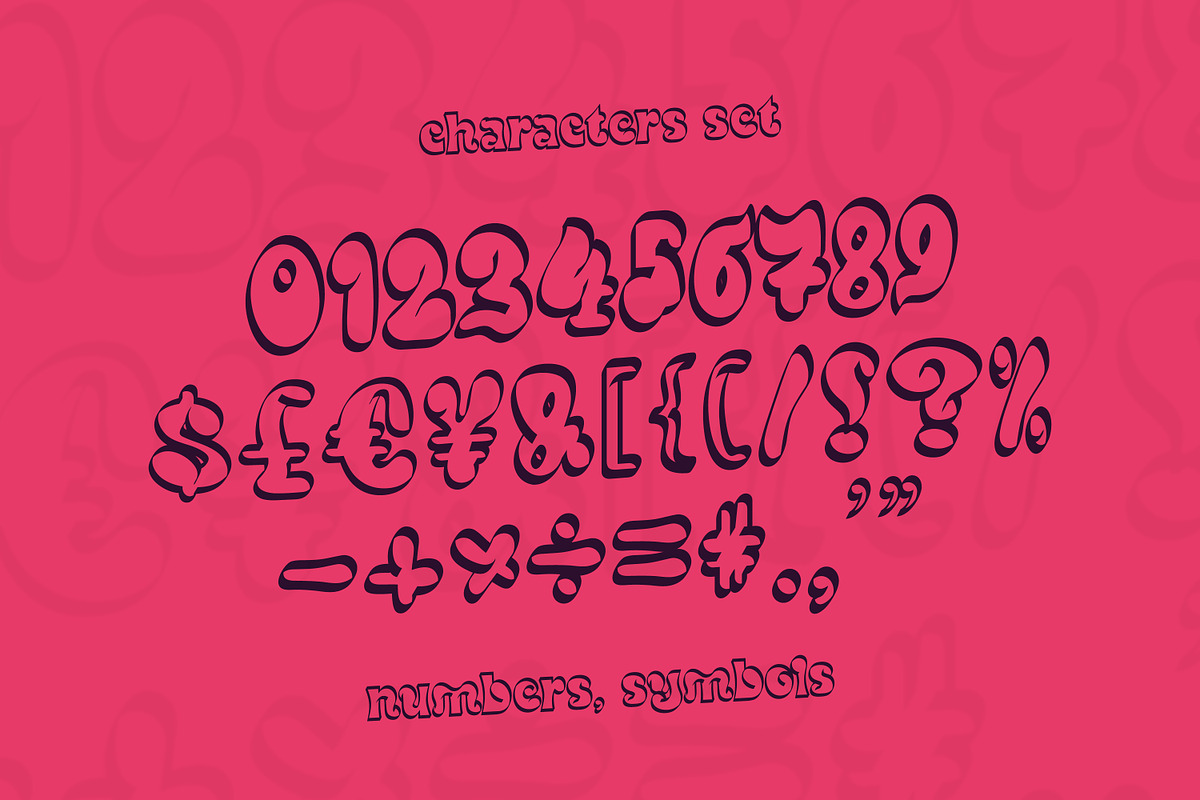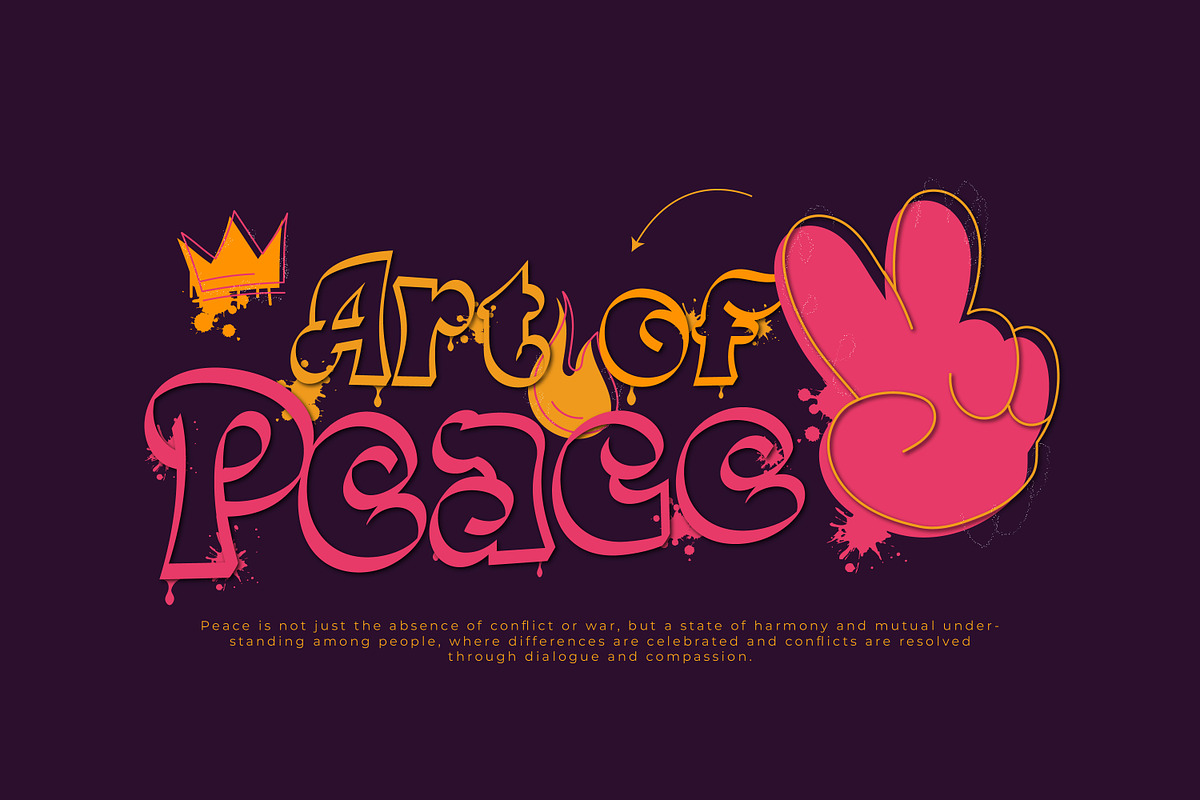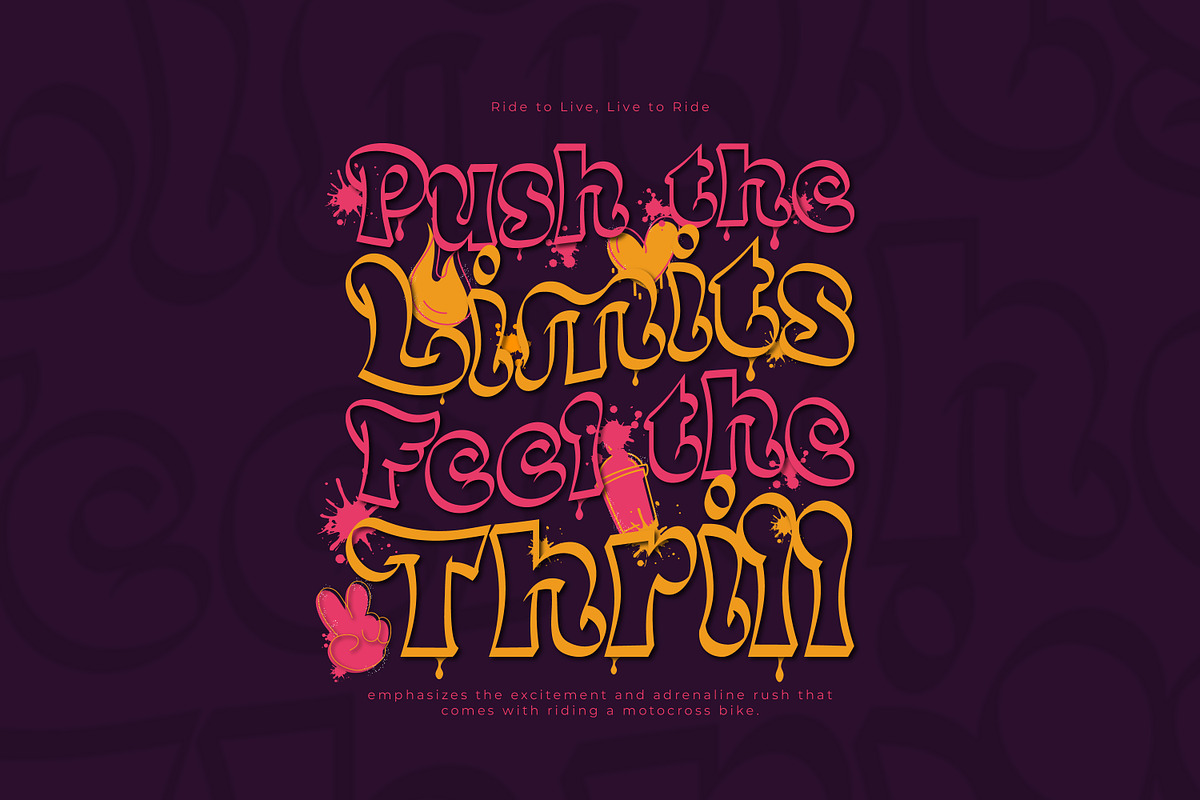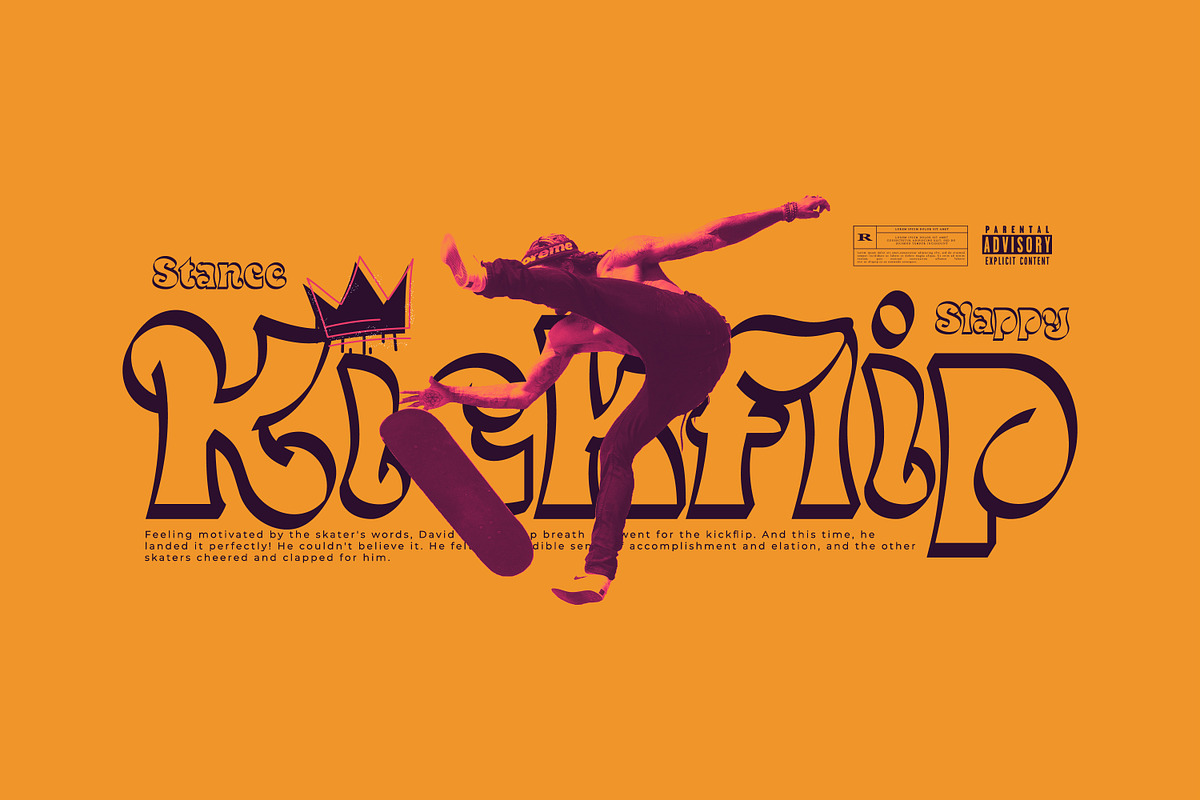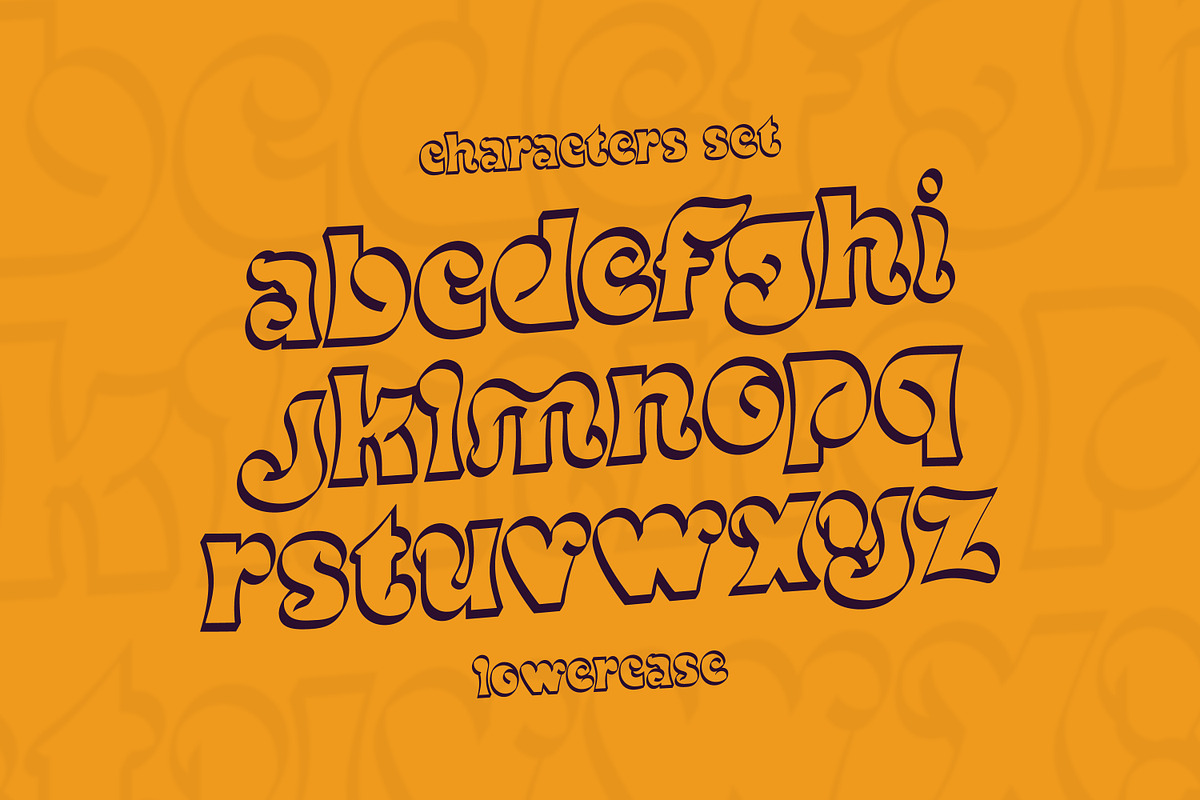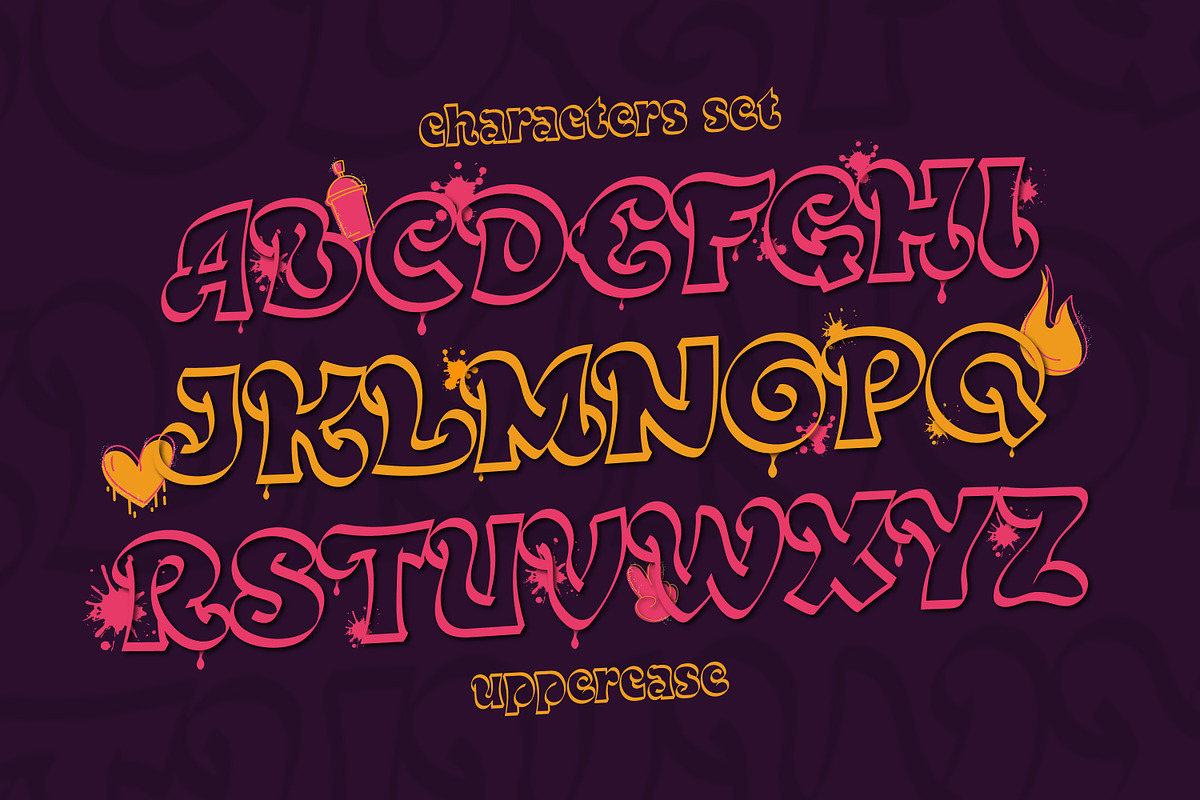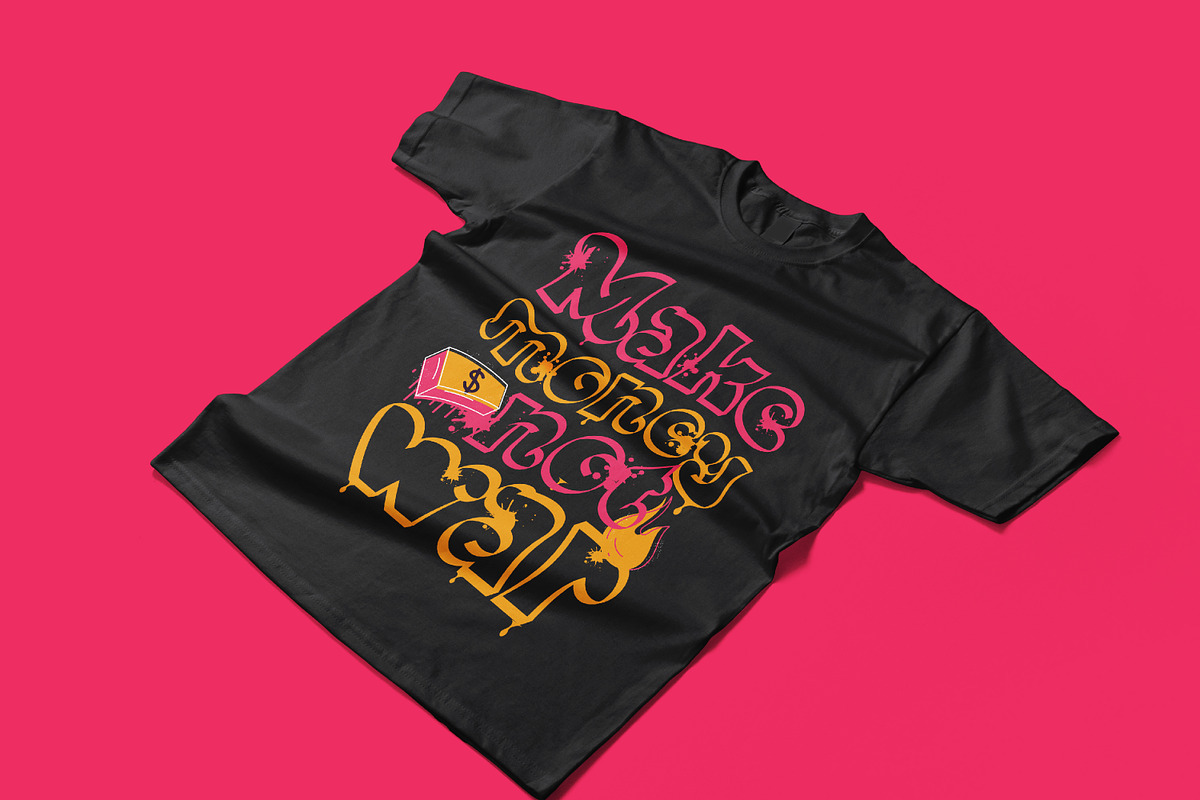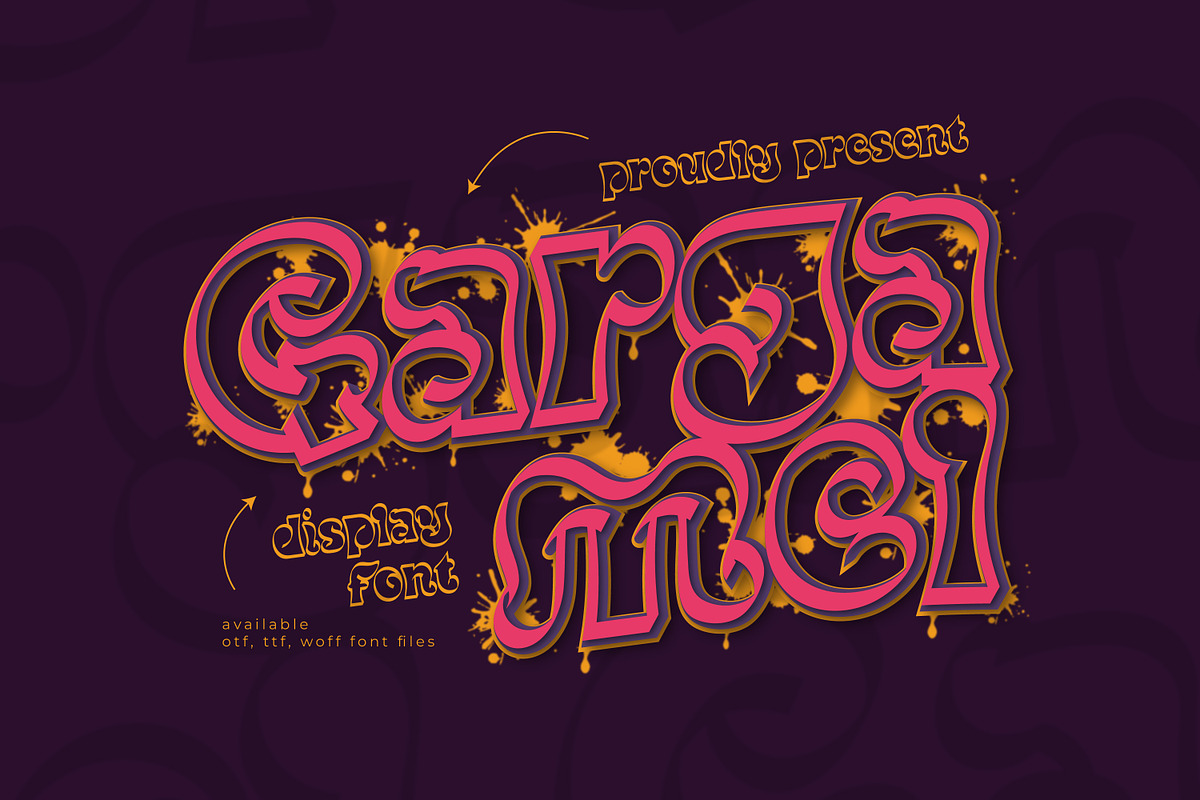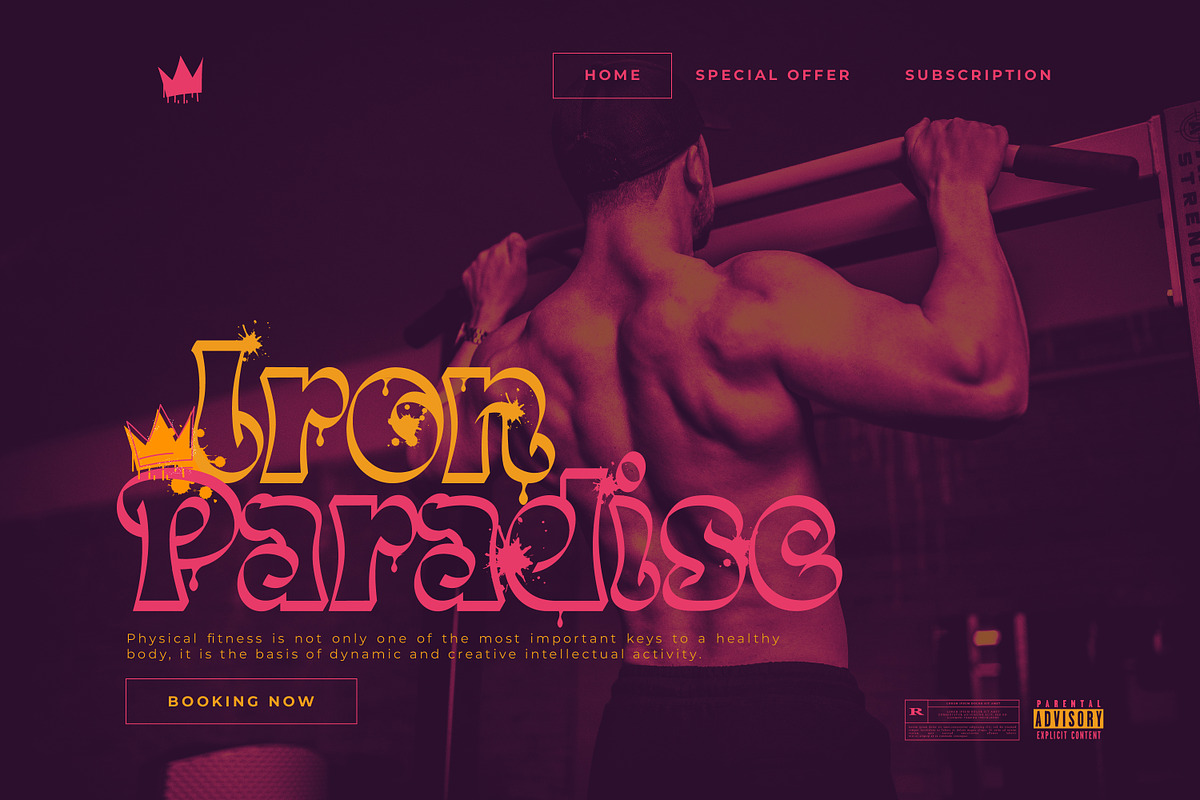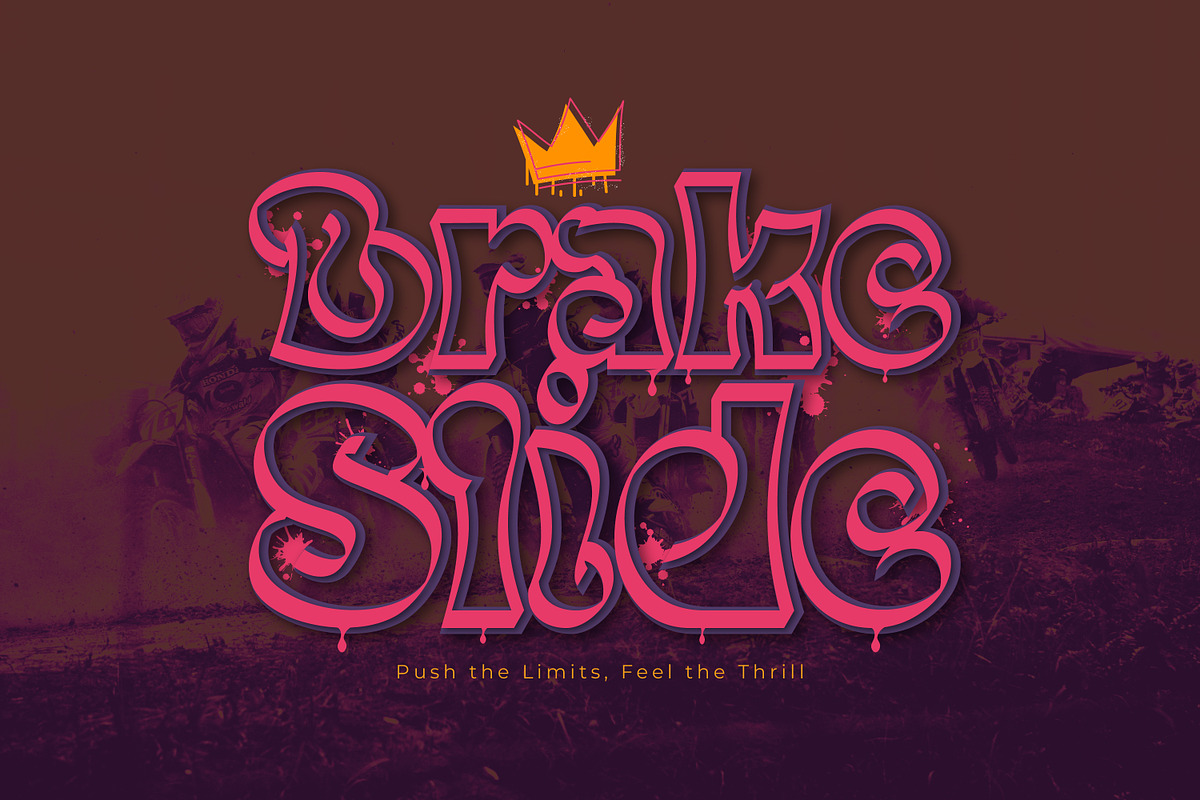
Gargamel Display Handwriting
Gargamel is a quirky and distinctive display font that is a real eye-catcher, with its bold and playful design. Its unique and unconventional shapes create a sense of fun and personality, making it perfect for anything that demands a touch of creativity and originality, from posters and packaging to social media graphics and branding.